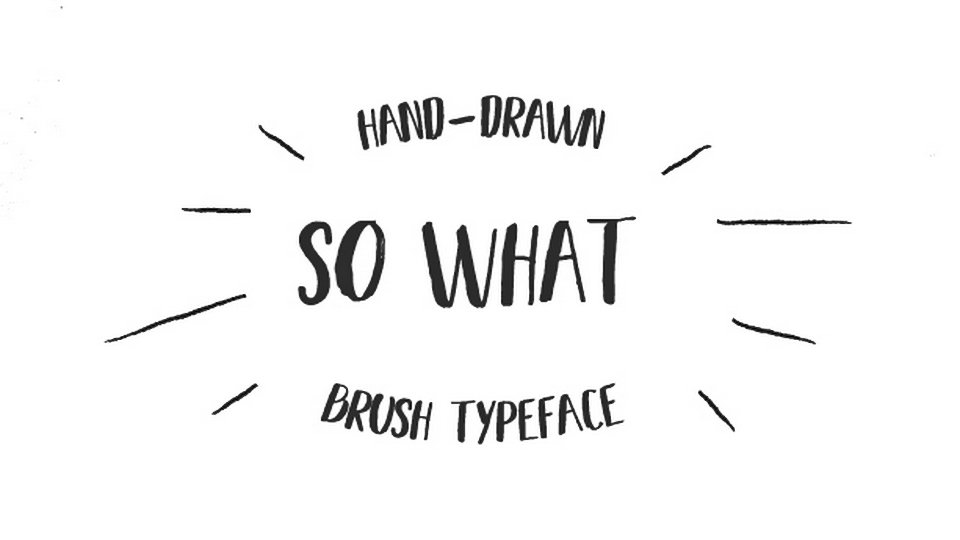
Download So What font, a simple custom hand made type created with brush pen with rough and imperfect characters that give a personal and a naturally hand drawn look to your text.
Designer: Fotini Pilichou